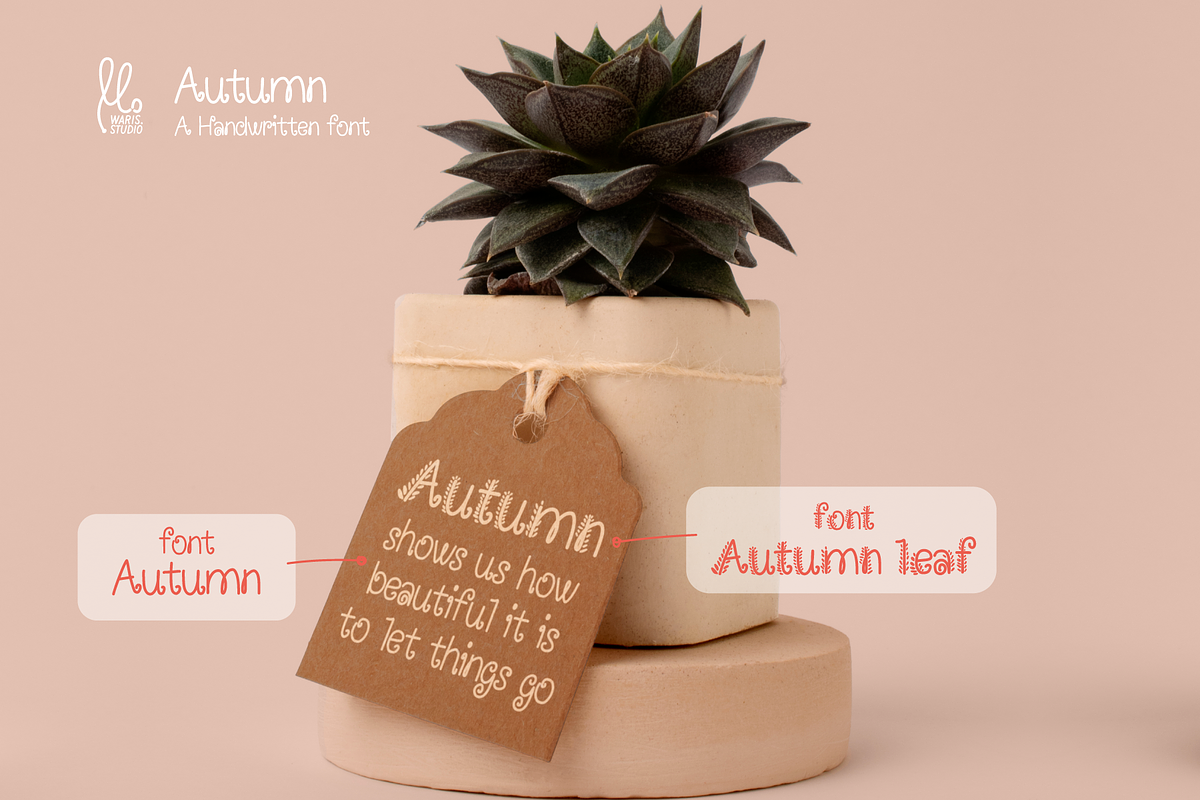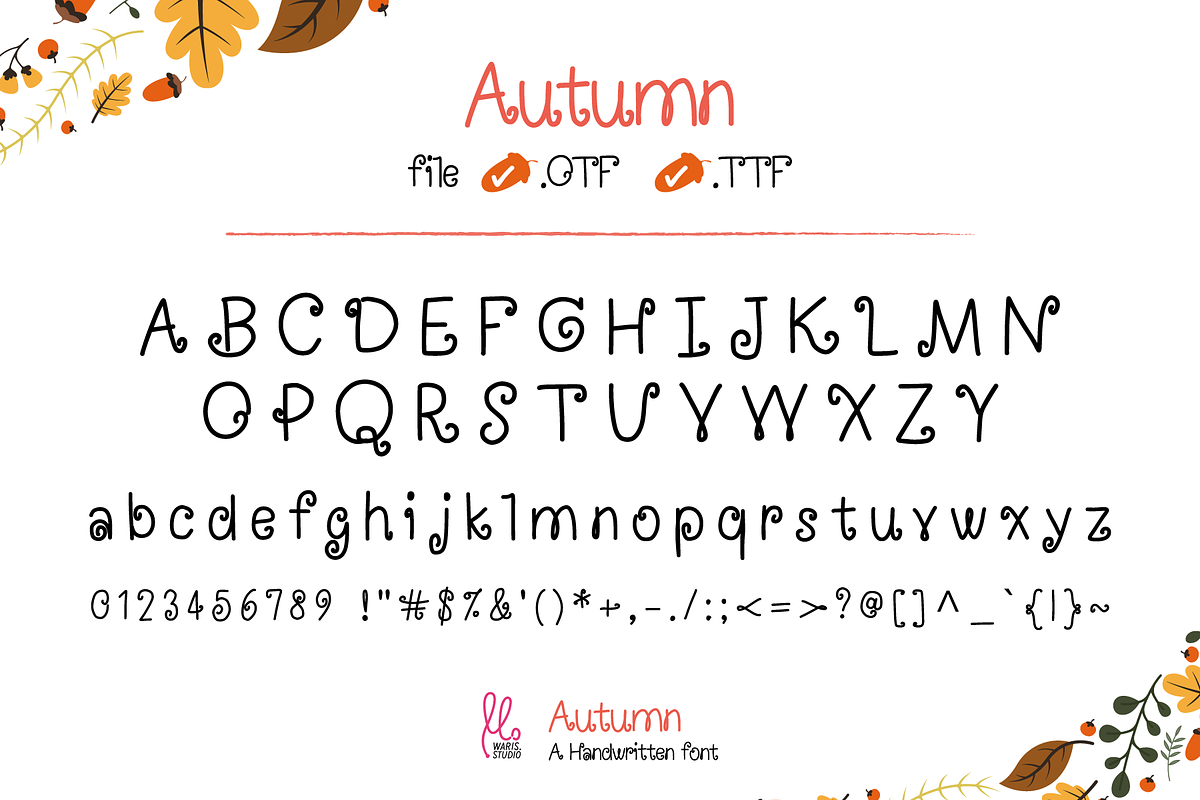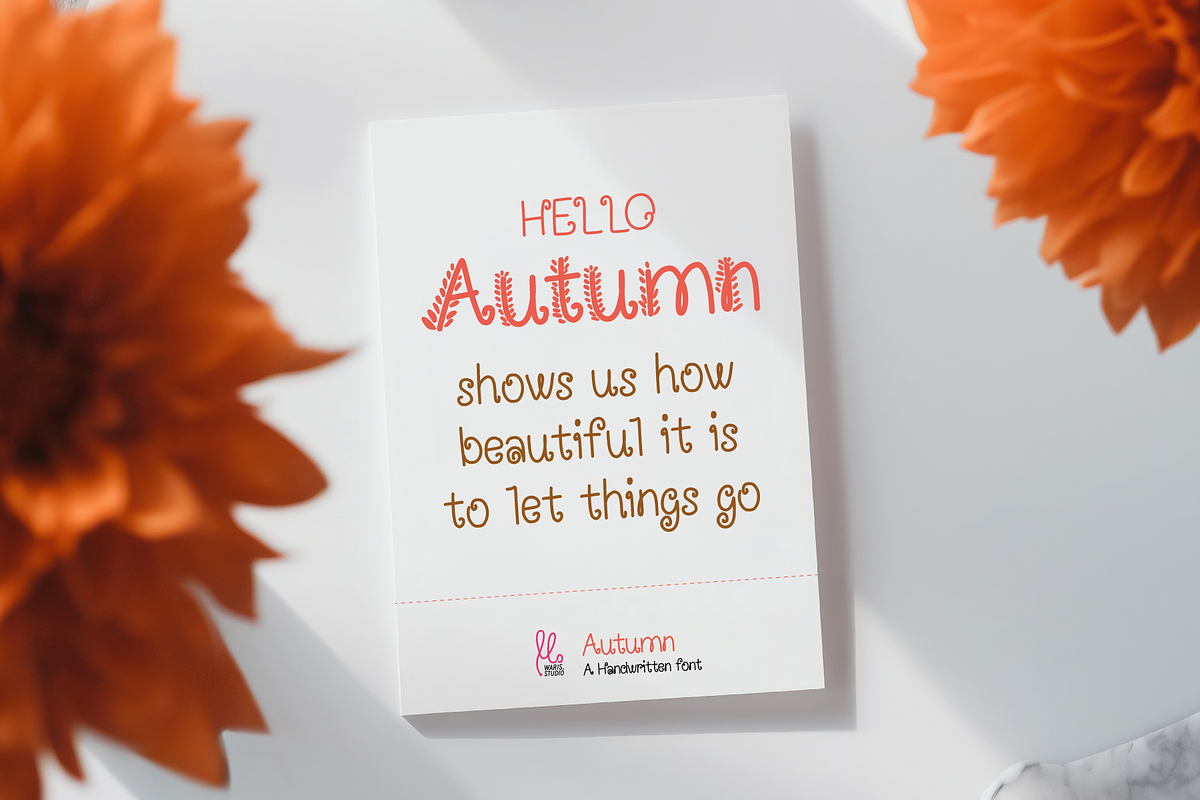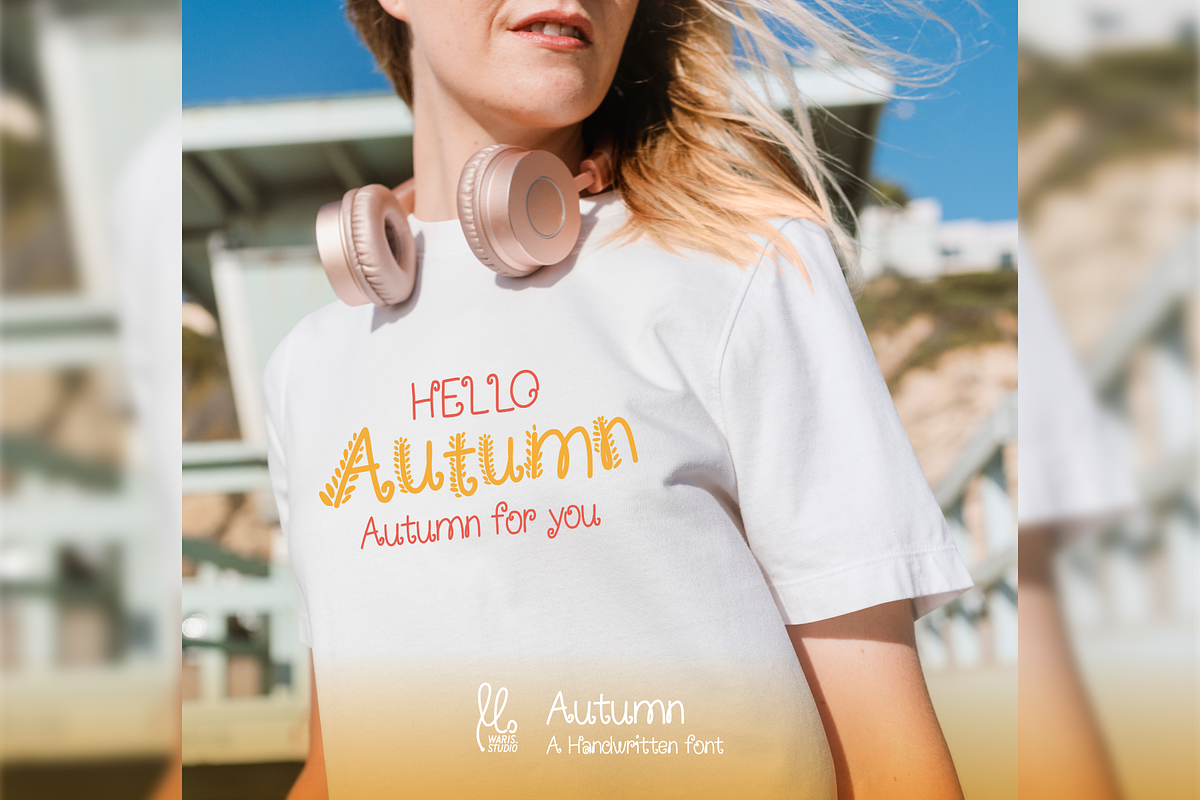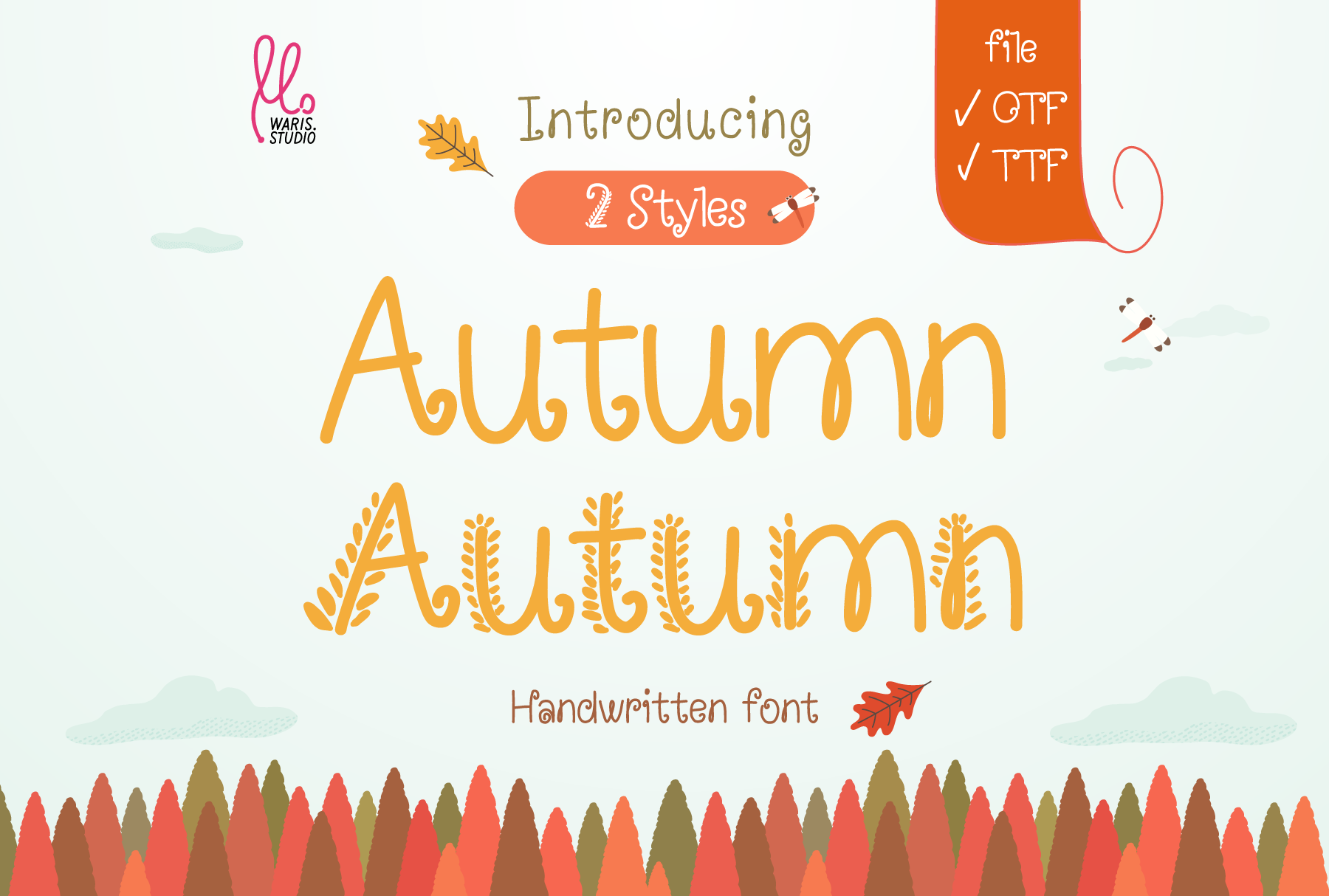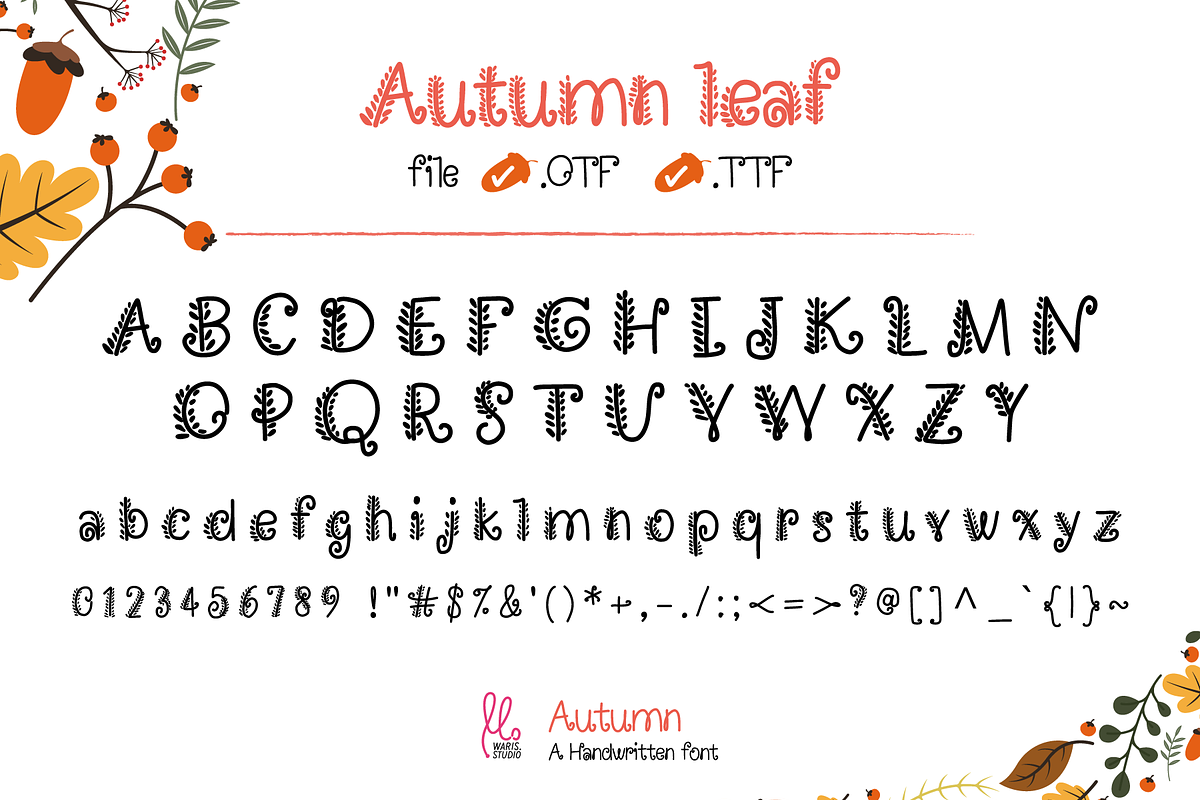
Autumn Font: A cozy, handwritten
"Autumn" font from Waris Studio – a charming handwritten typeface imbued with the spirit of the fall season. With two distinct yet harmonious styles, this font is perfect for creating designs that evoke a warm, friendly, and unique handmade feel.
- Two Styles in One: The Autumn font offers two variations of its characters, providing you with diverse design options. Choose between a simpler, yet endearing style, or a more playful style adorned with natural, autumnal accents.
- Handwritten Design: As a handwritten font, Autumn exudes a natural, approachable, and personal vibe. It's ideal for designs that aim to convey sincerity and warmth.
- Graphic design projects with nature, autumn, or cozy themes.
- Designs requiring a friendly touch, such as invitations, posters, or packaging.
- Personal and commercial projects seeking a distinctive typeface.
- Print and digital media that benefit from a comfortable and inviting aesthetic.
The Autumn font will undoubtedly add a special and memorable touch to all your design creations!